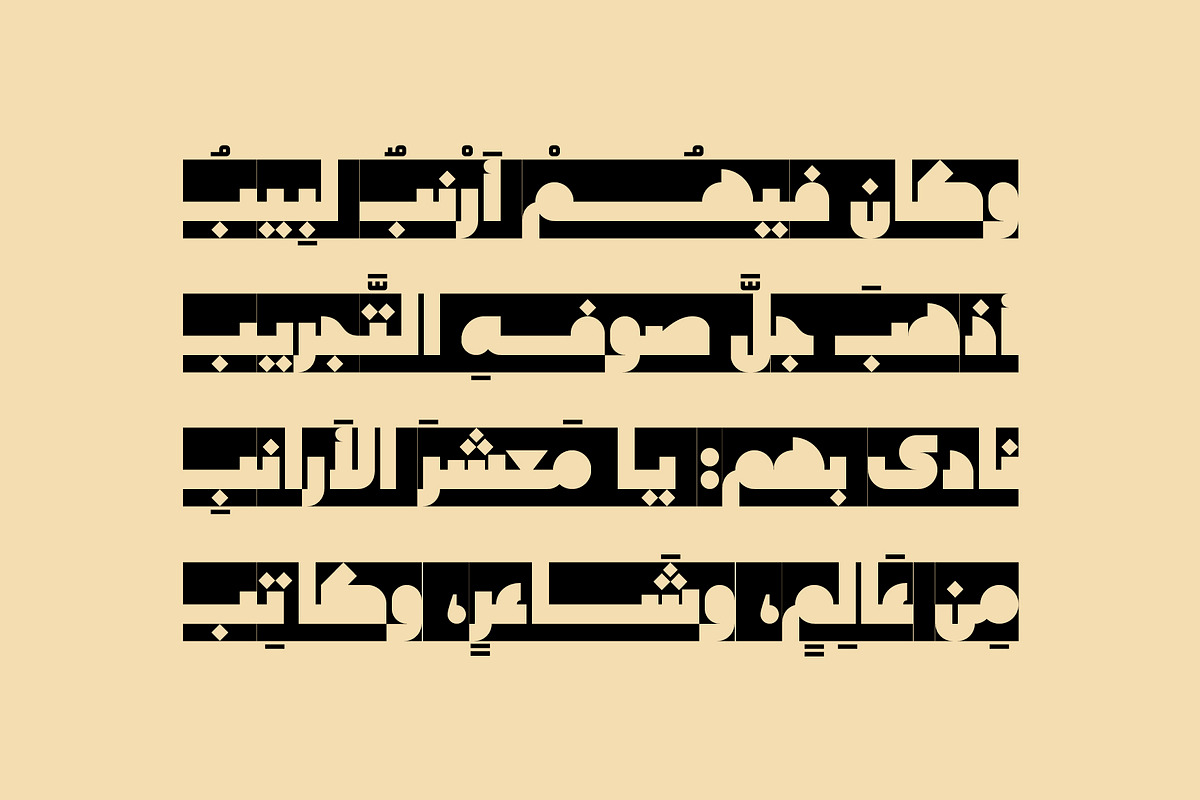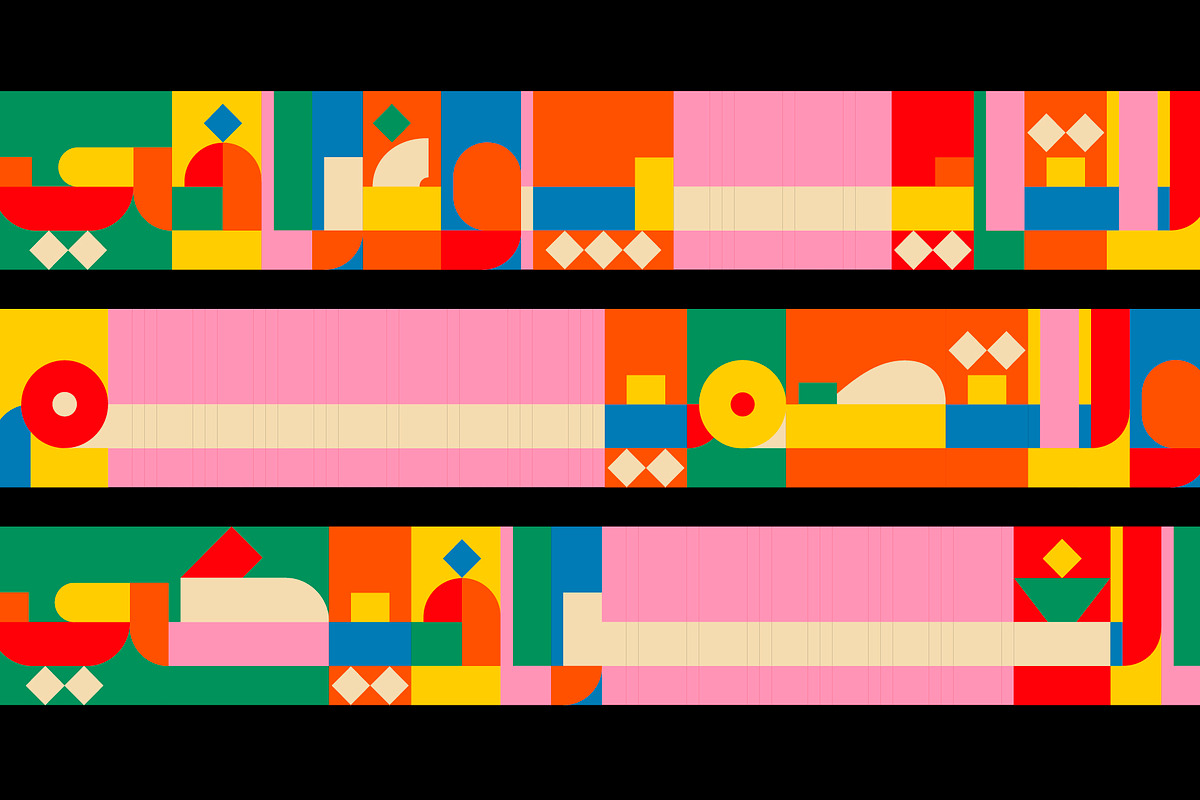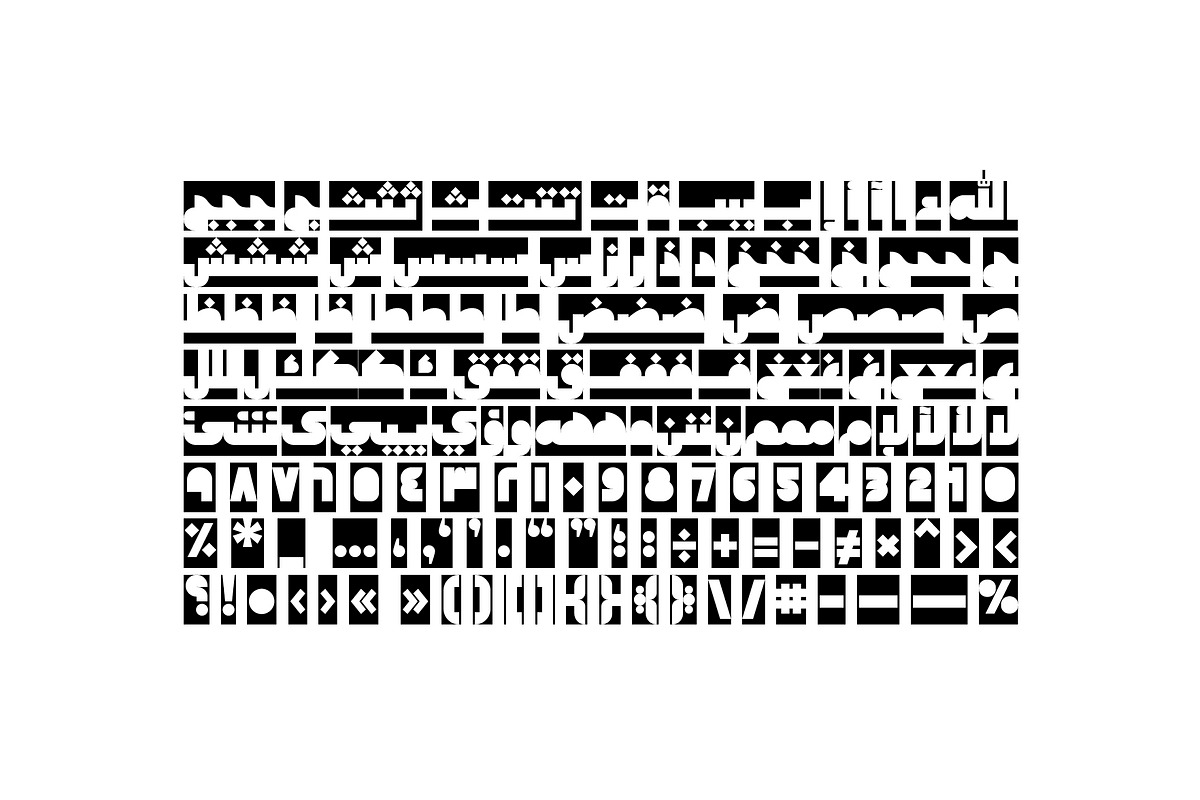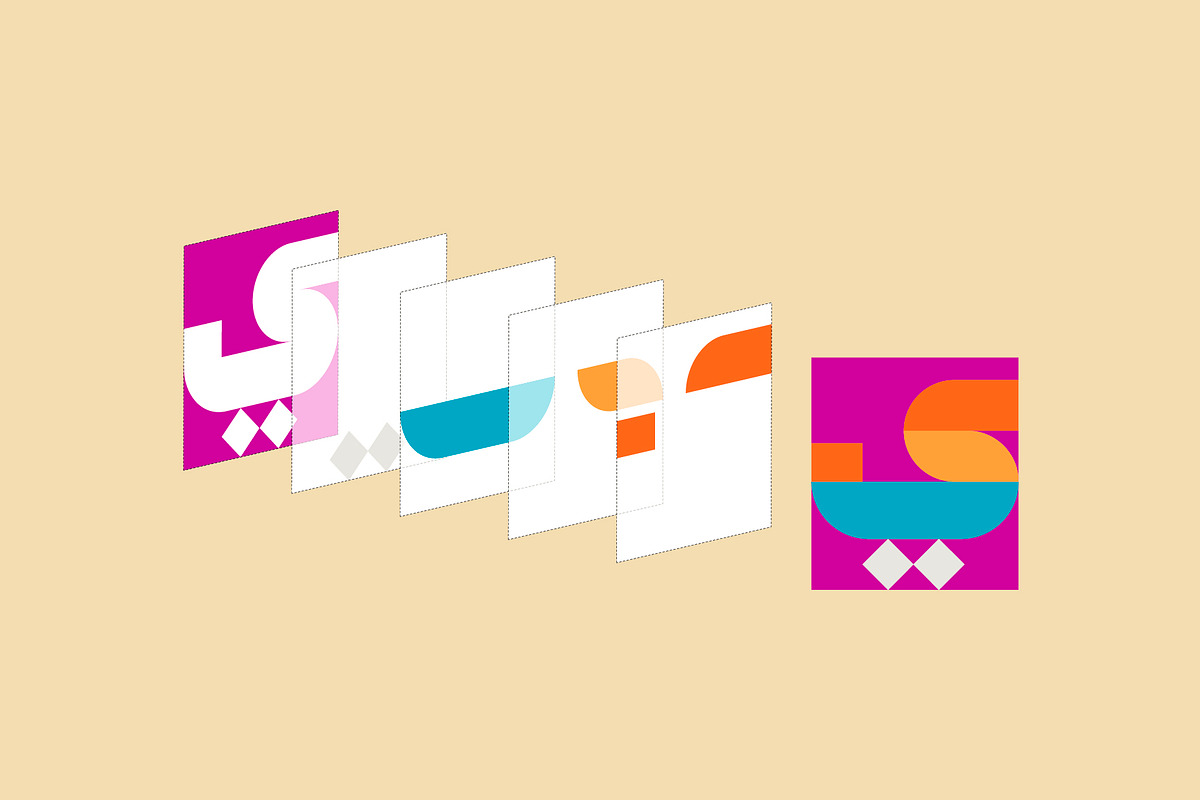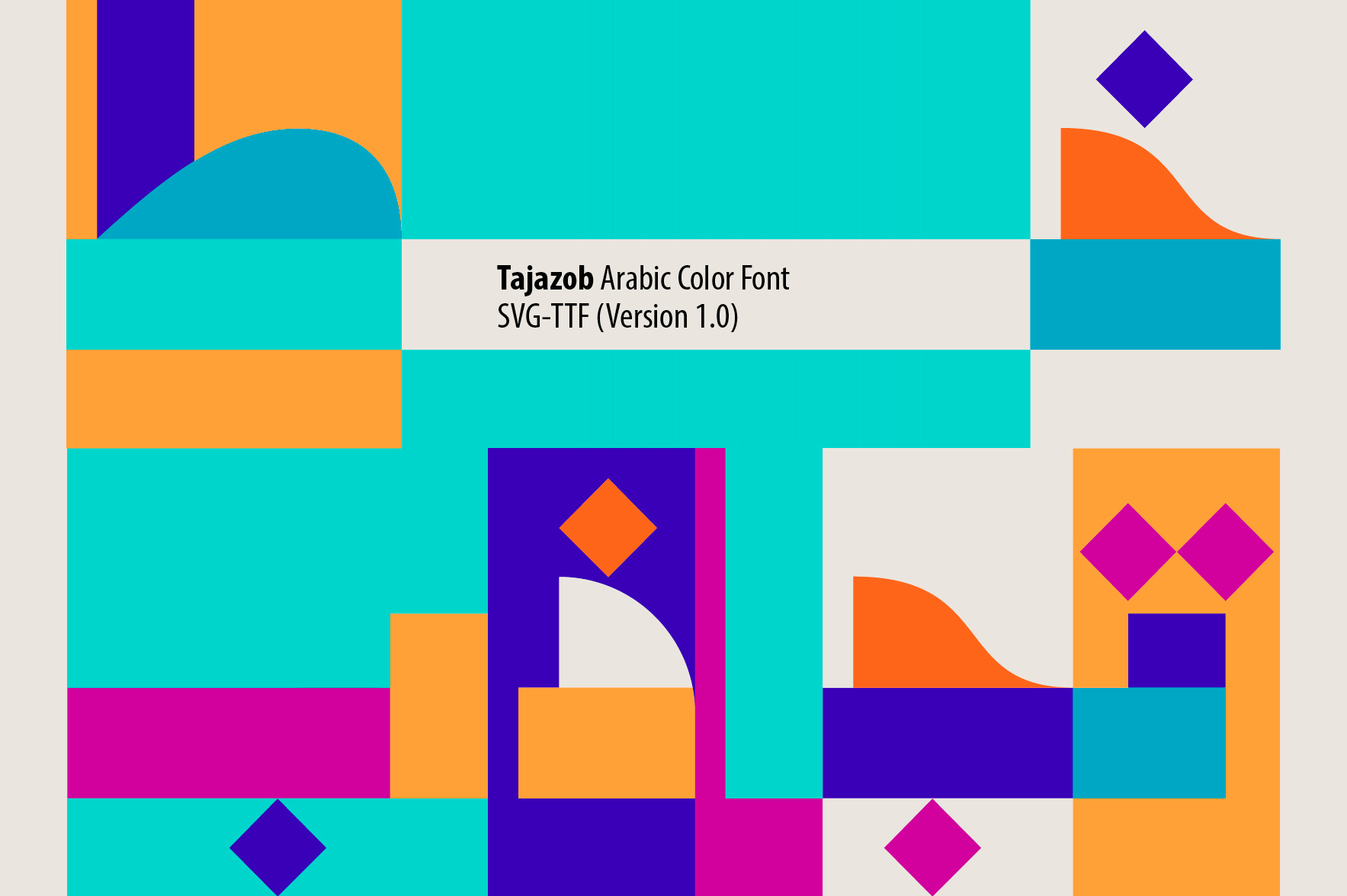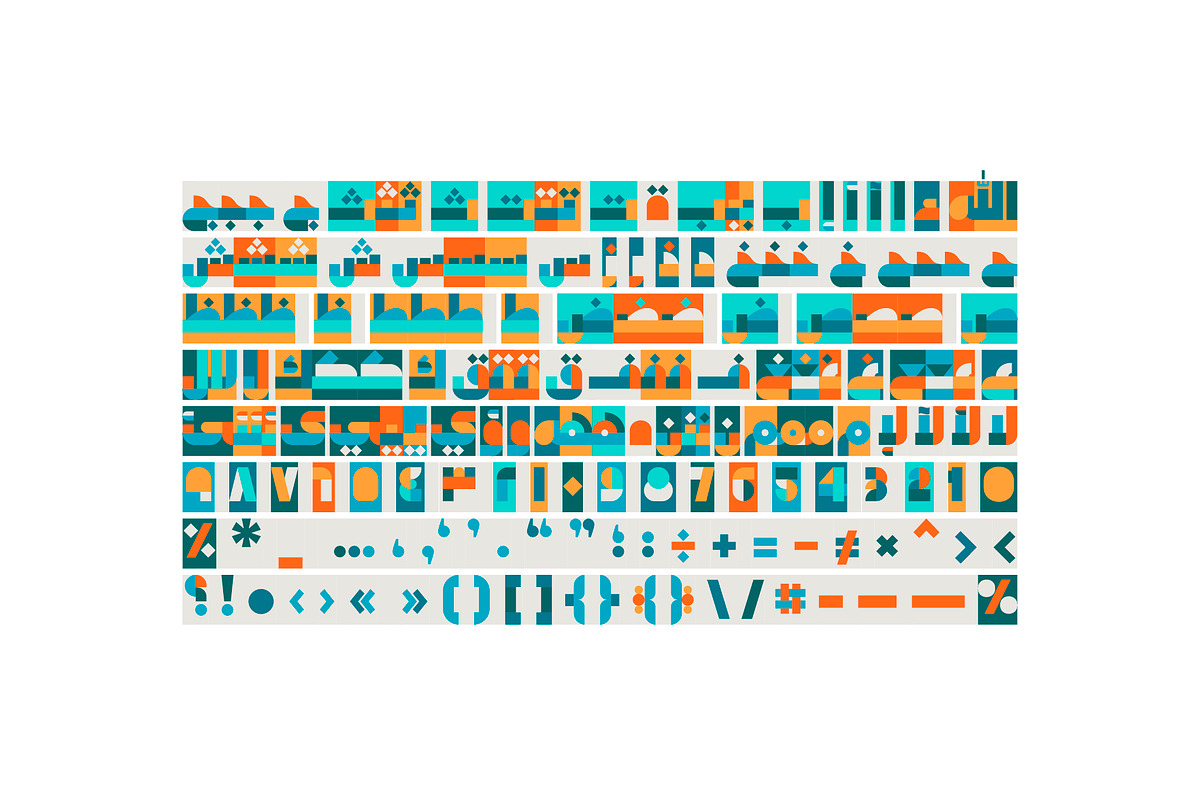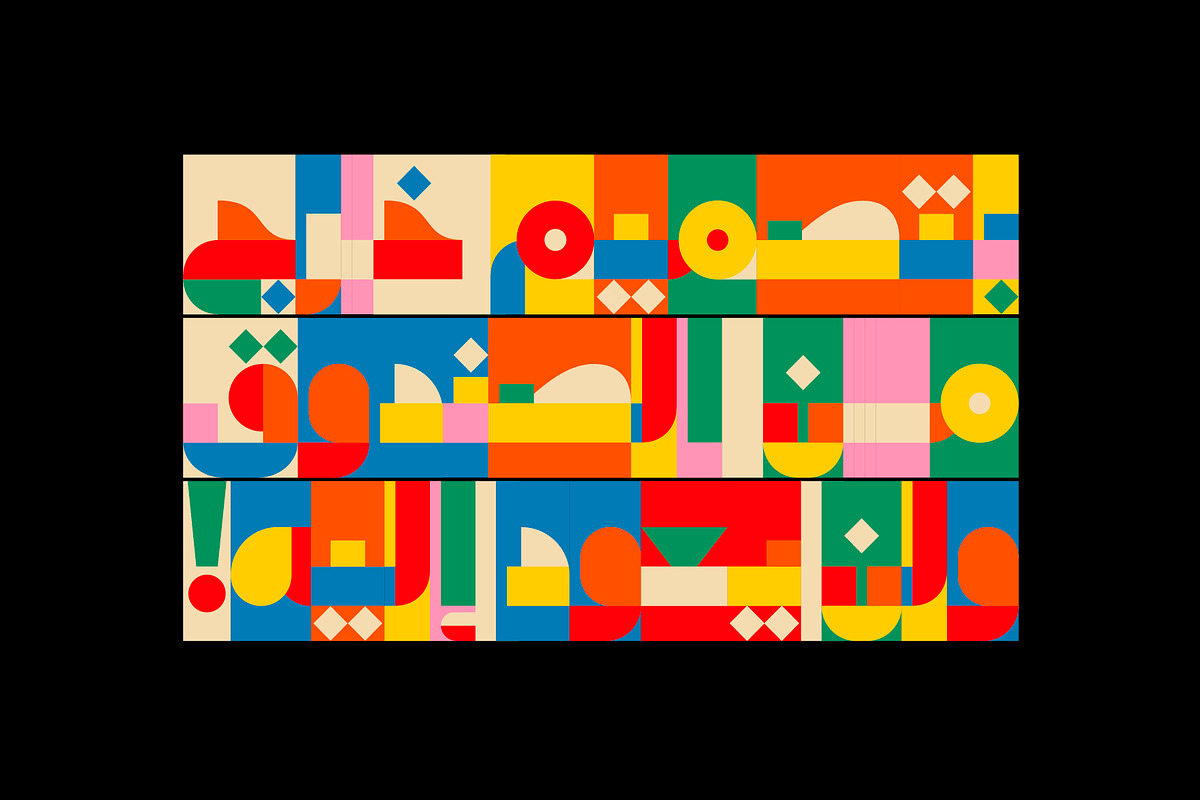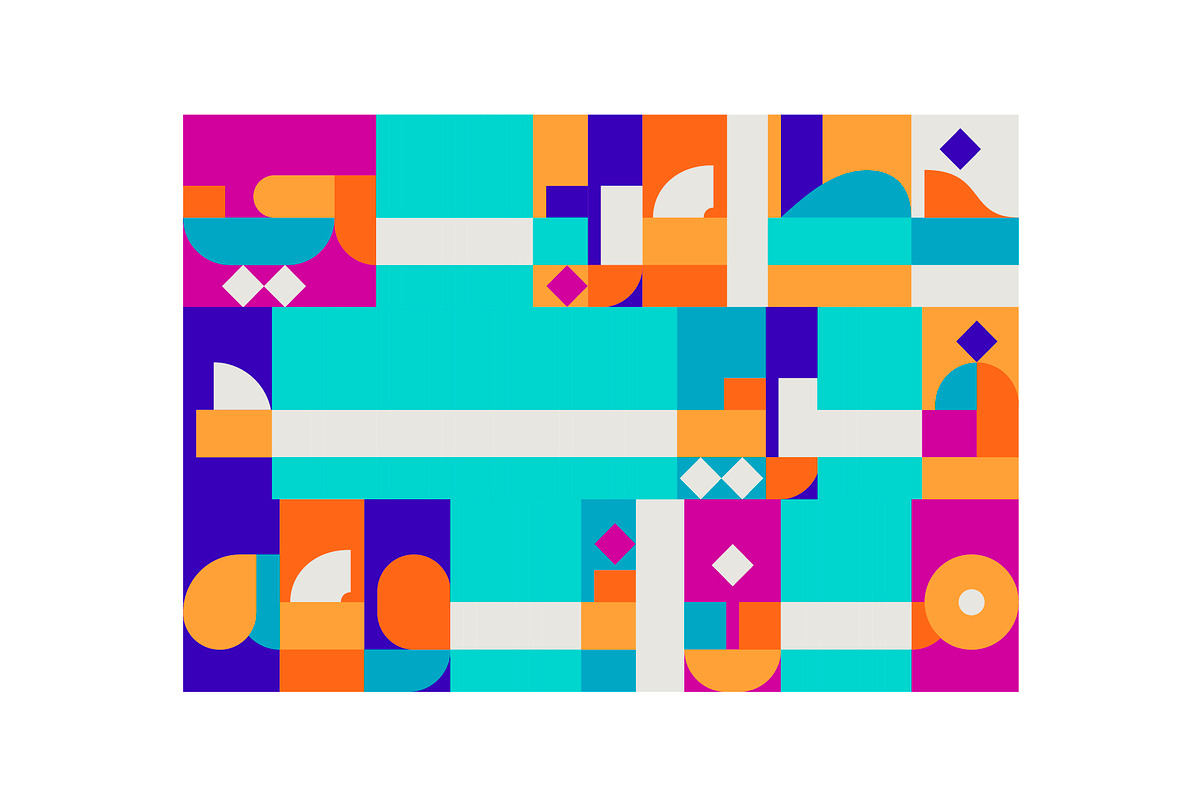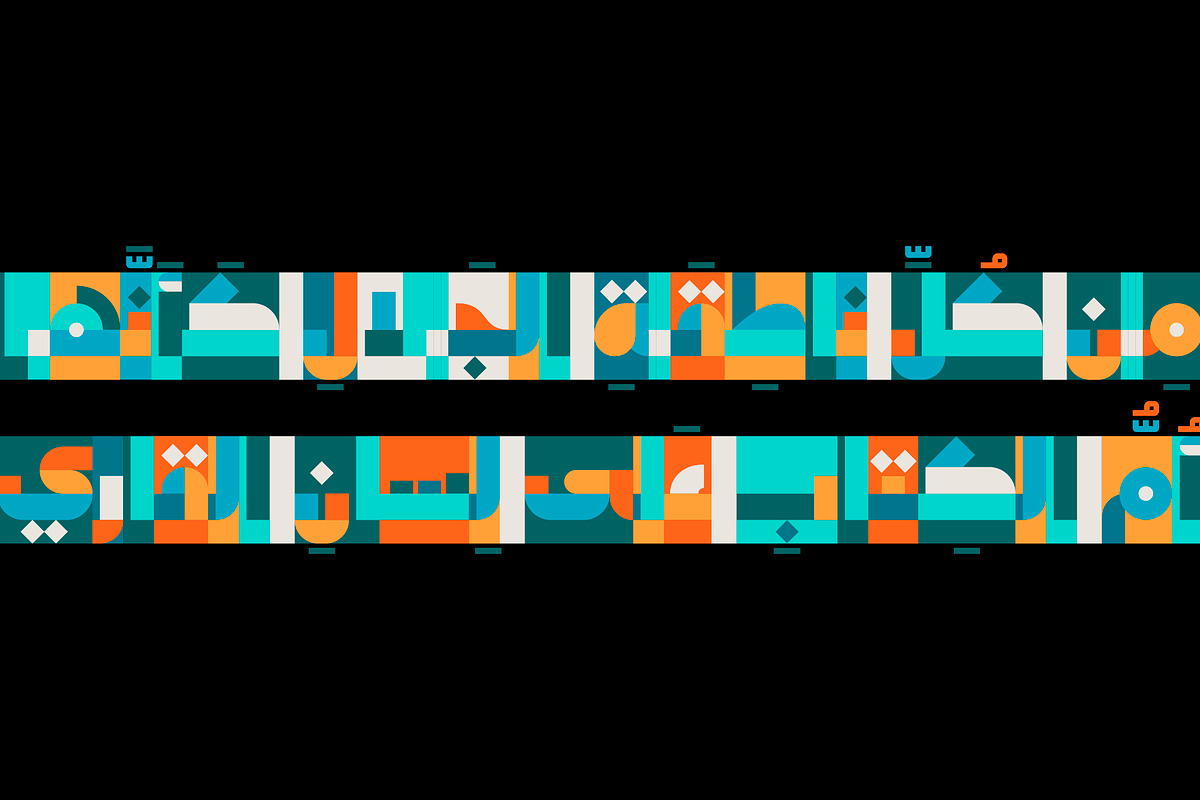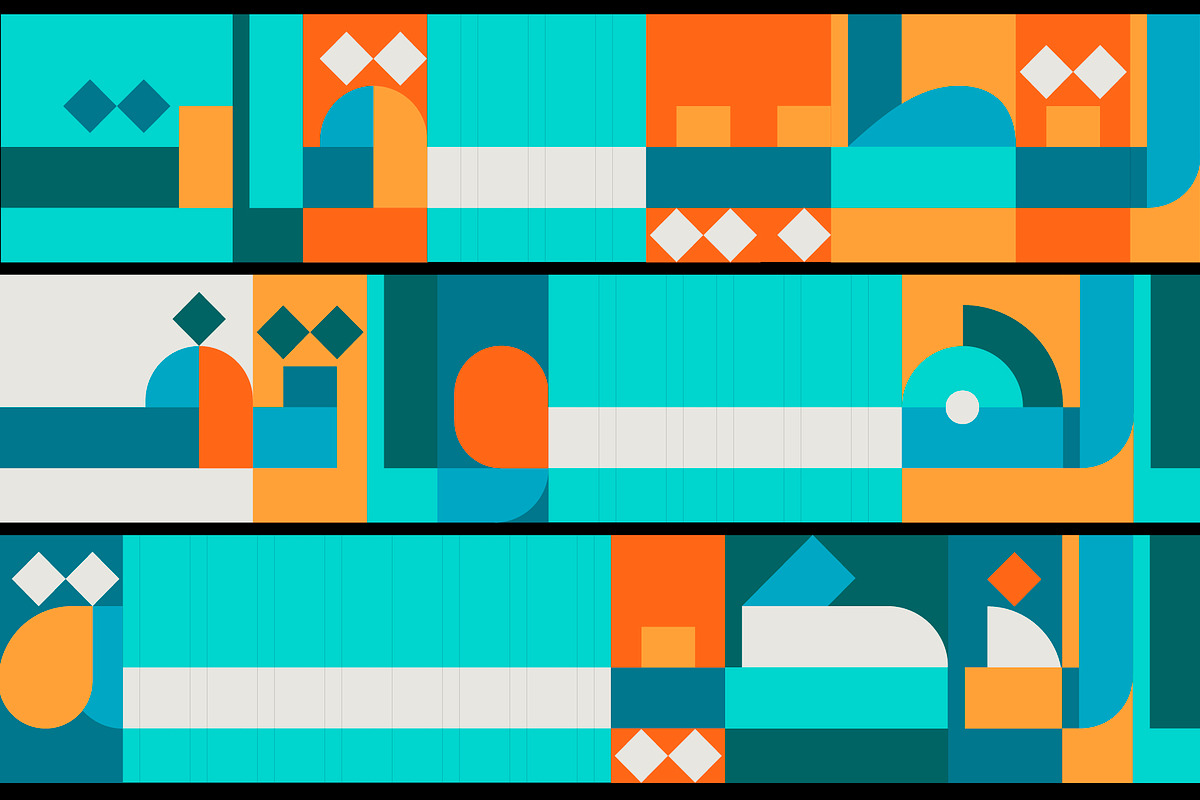
Tajazob - Arabic Color Font
Tajazob (the Arabic for 'Attraction') is an Arabic display font that features distinctive design with colorful letterform blocks. The typeface include 3 color fonts (SVG-TTF) along with a plain font (OTF). Tajazob is suitable for contemporary creative projects such as branding, advertising, web design and print. It supports Windows (10 and above), macOS (High Sierra and above) and mobile applications.